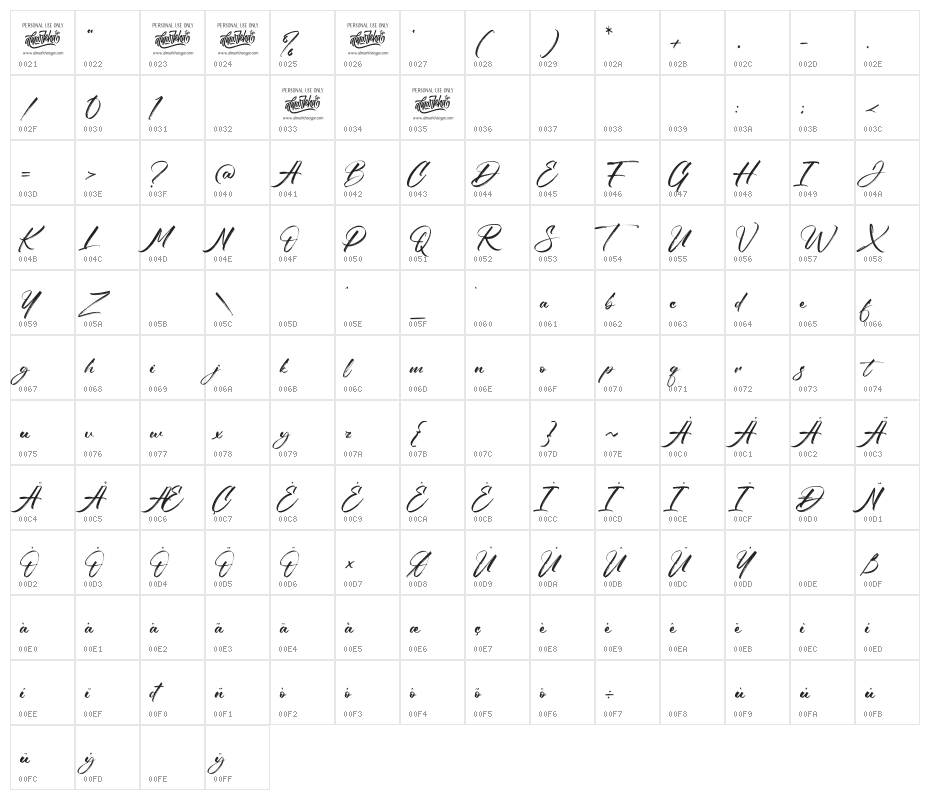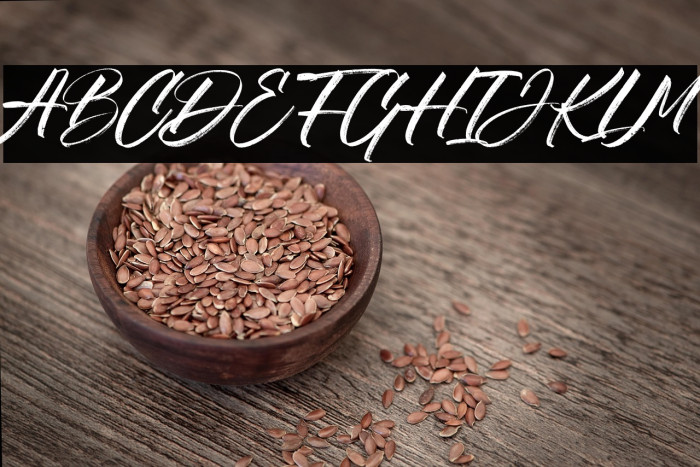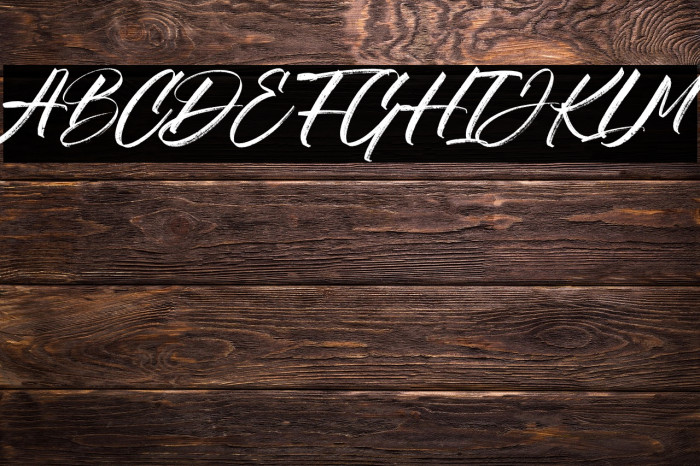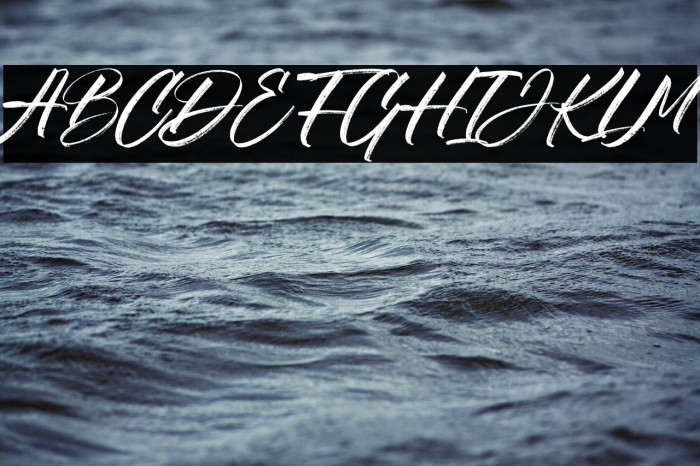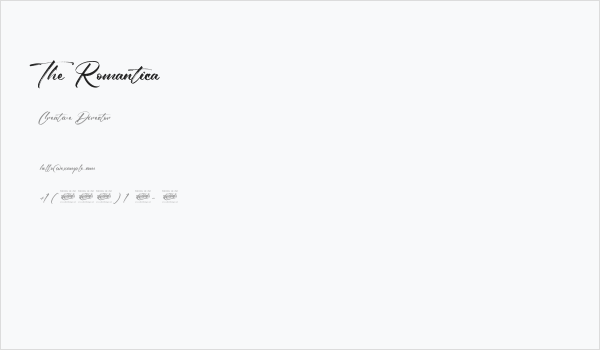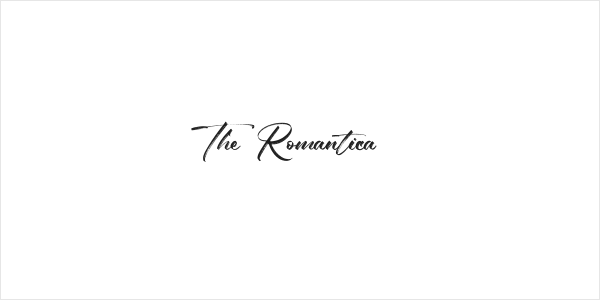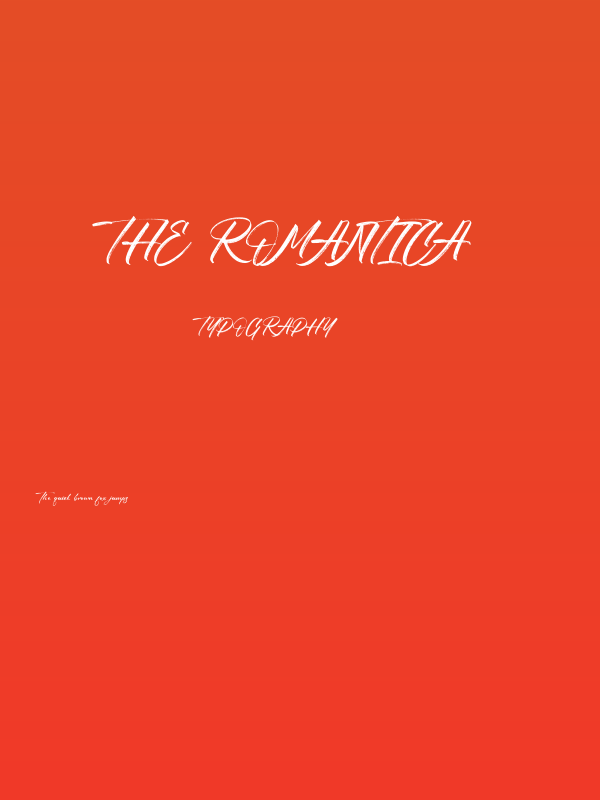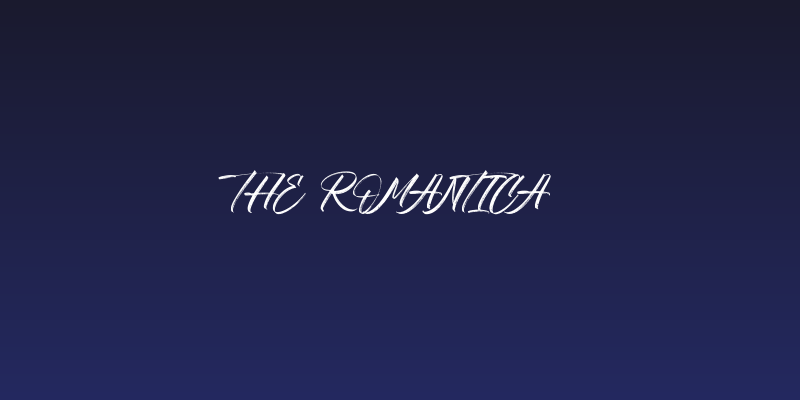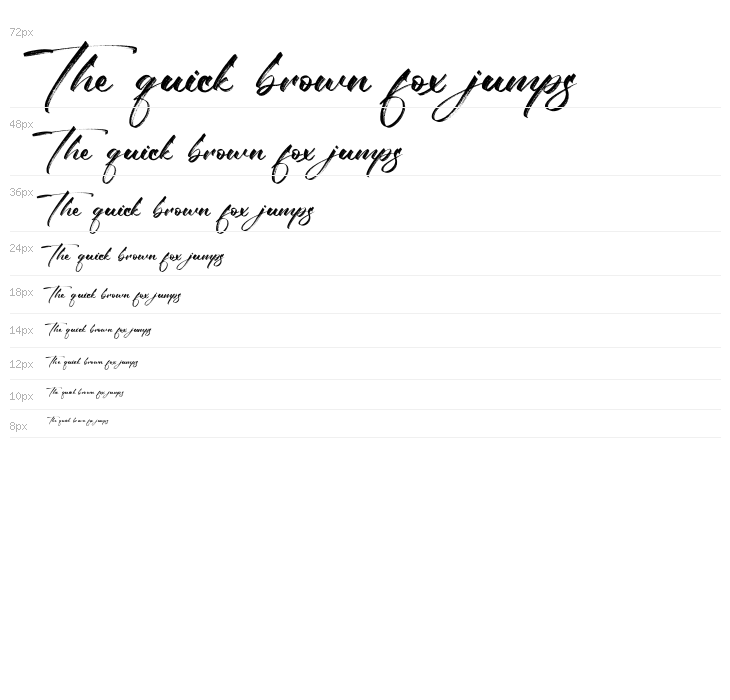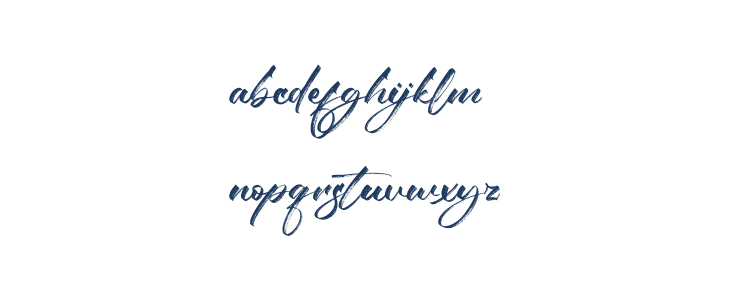
The Romantica Font
The Romantica Description
This font exudes a romantic and artistic flair, characterized by its flowing, cursive style that mimics elegant handwriting. The uppercase letters are bold and sweeping, with dramatic flourishes that add a sense of movement and grace. The lowercase letters are more subdued but maintain a consistent fluidity, creating a harmonious balance. The strokes vary in thickness, providing a dynamic contrast that enhances its visual appeal. This font is perfect for adding a touch of sophistication and charm to any design project.